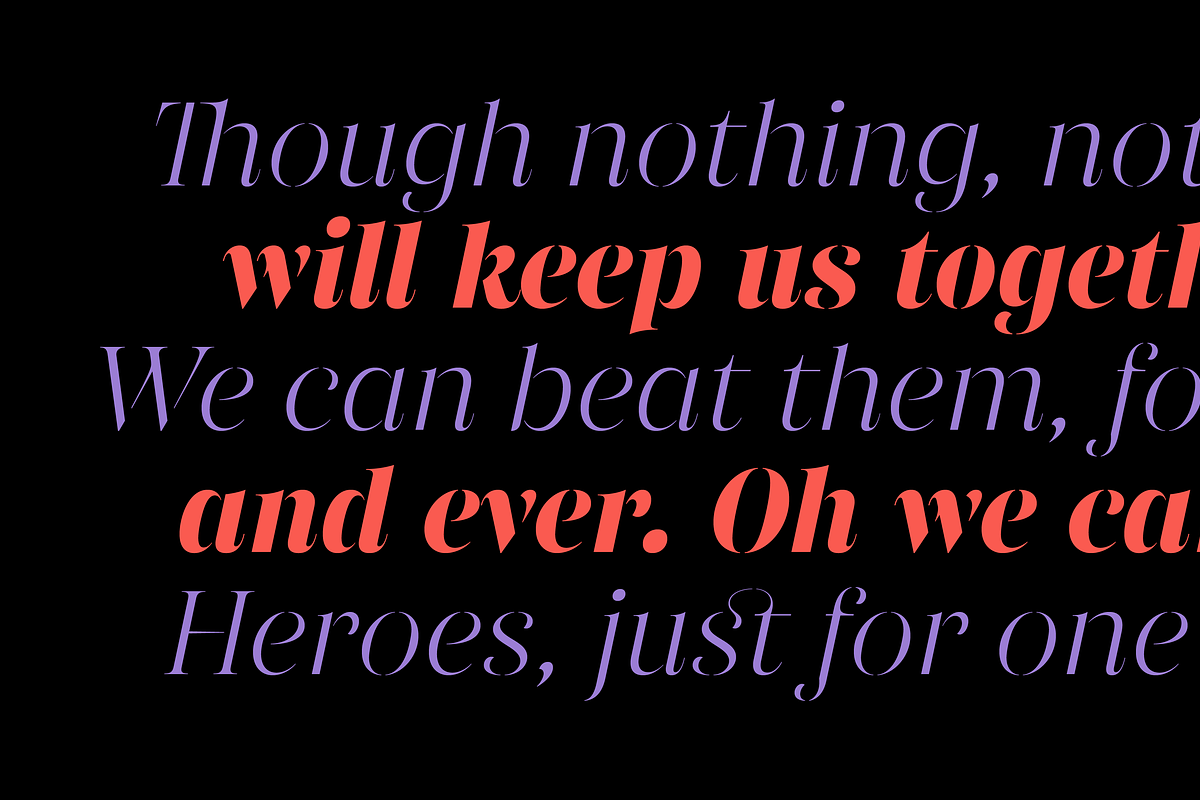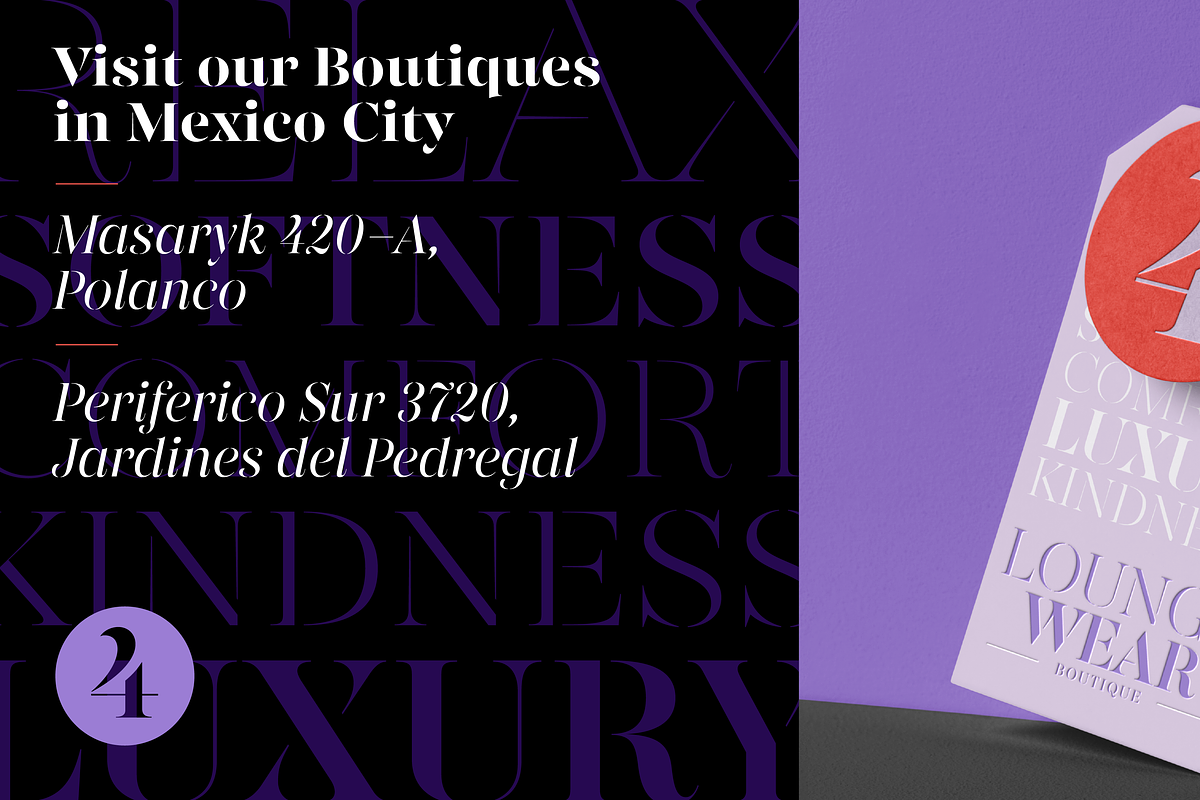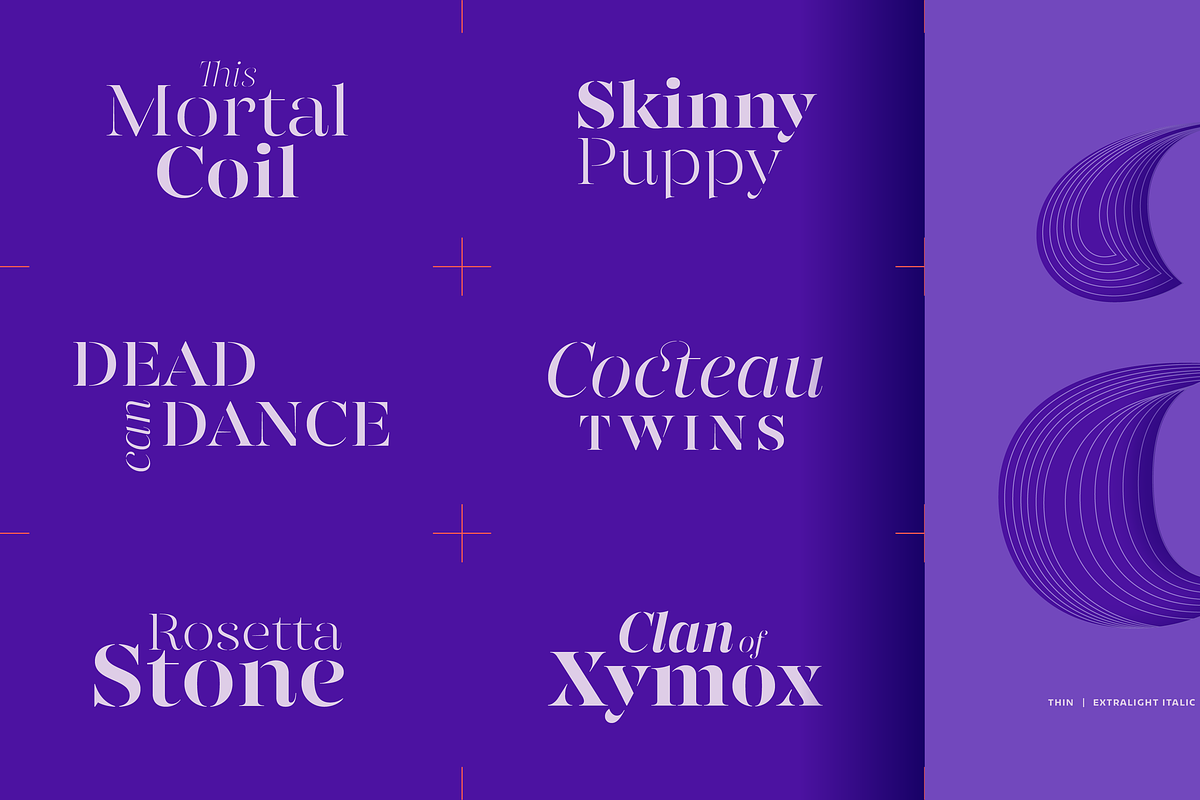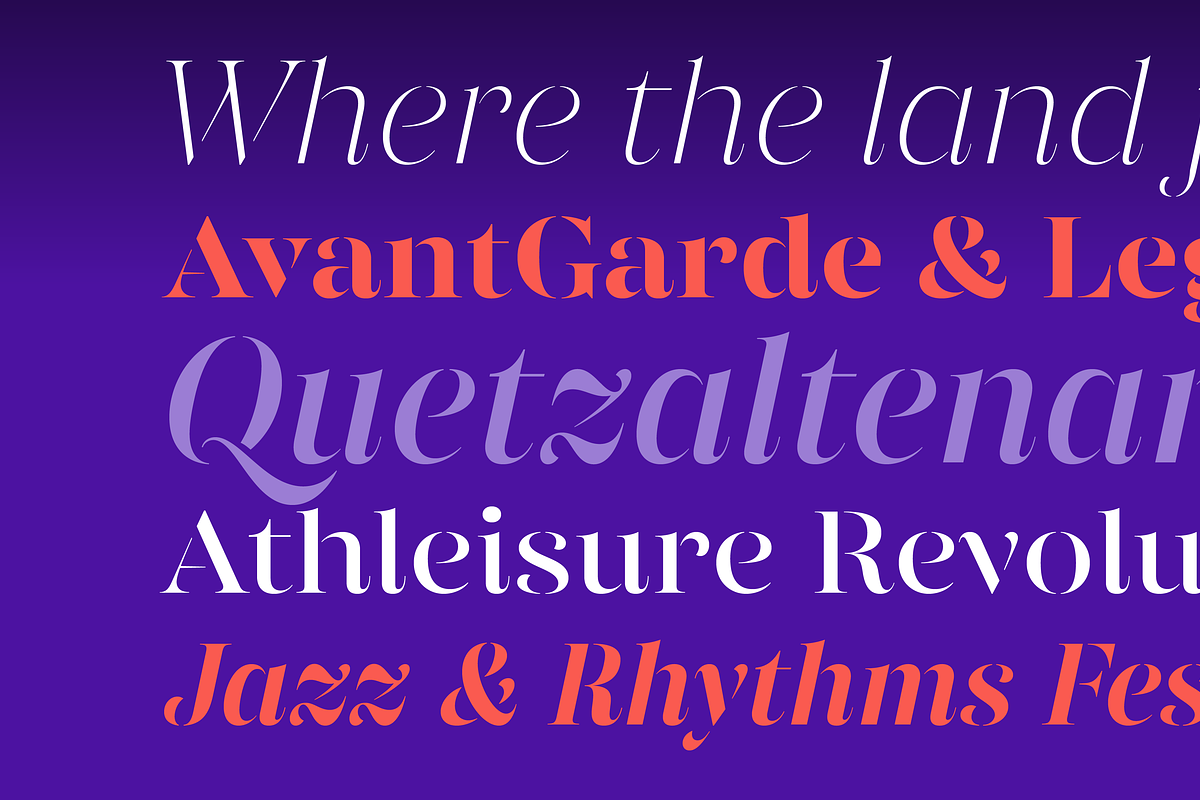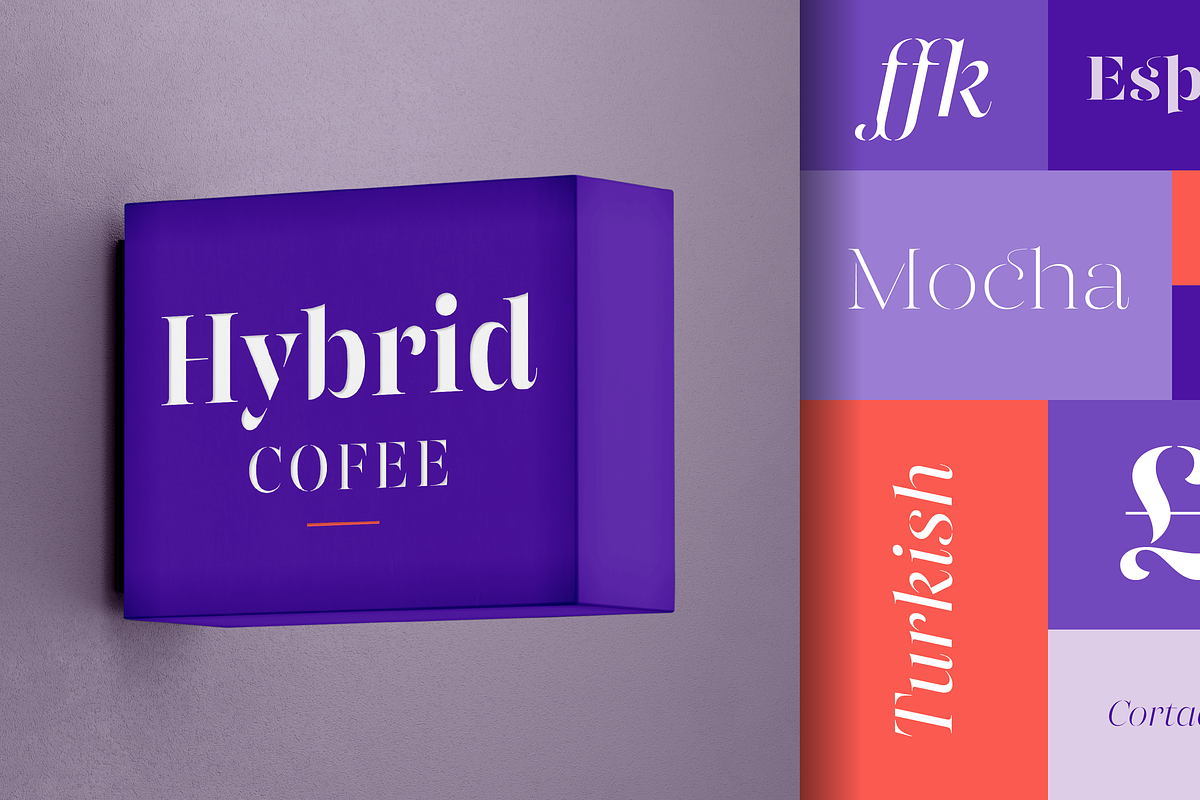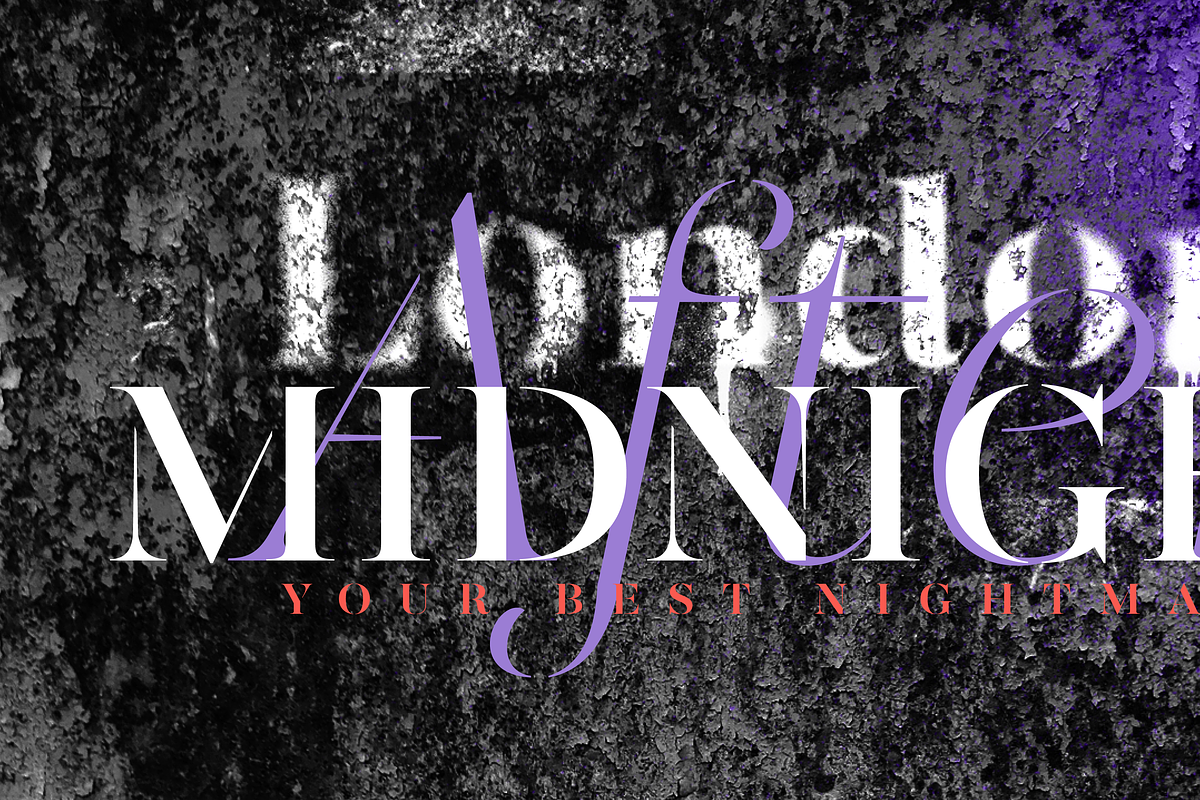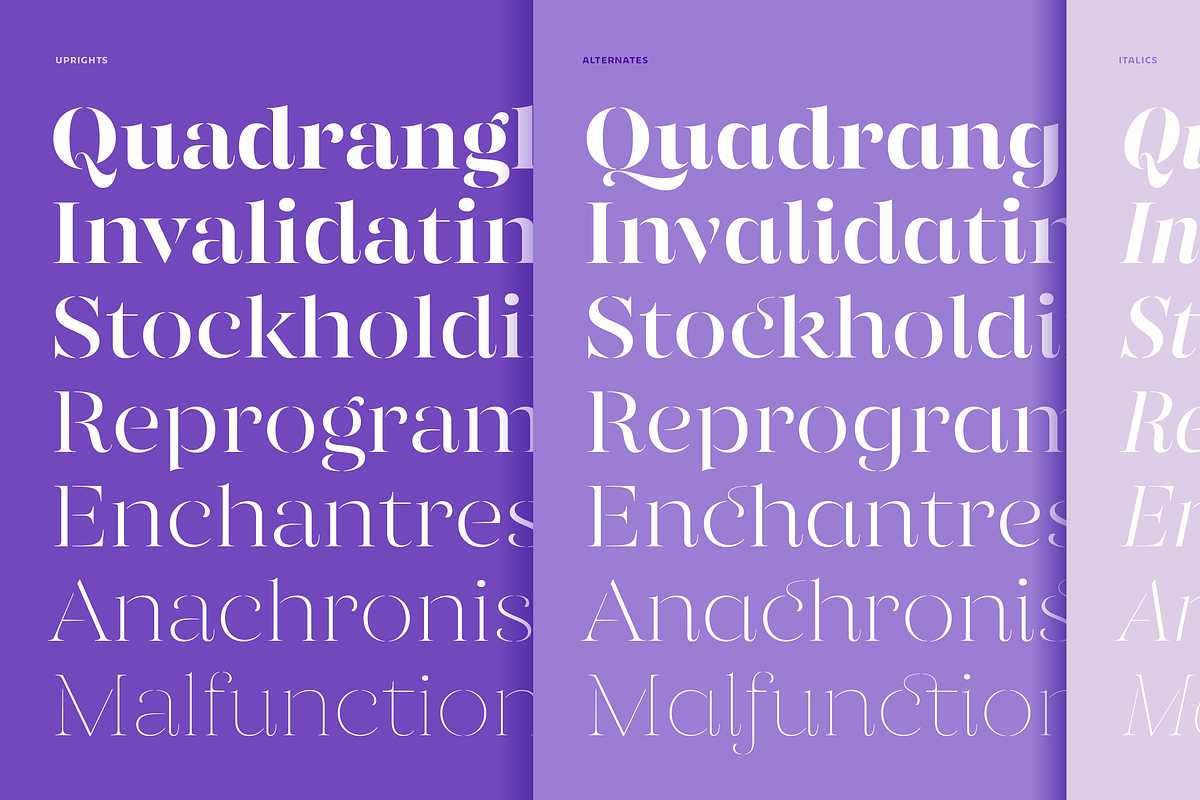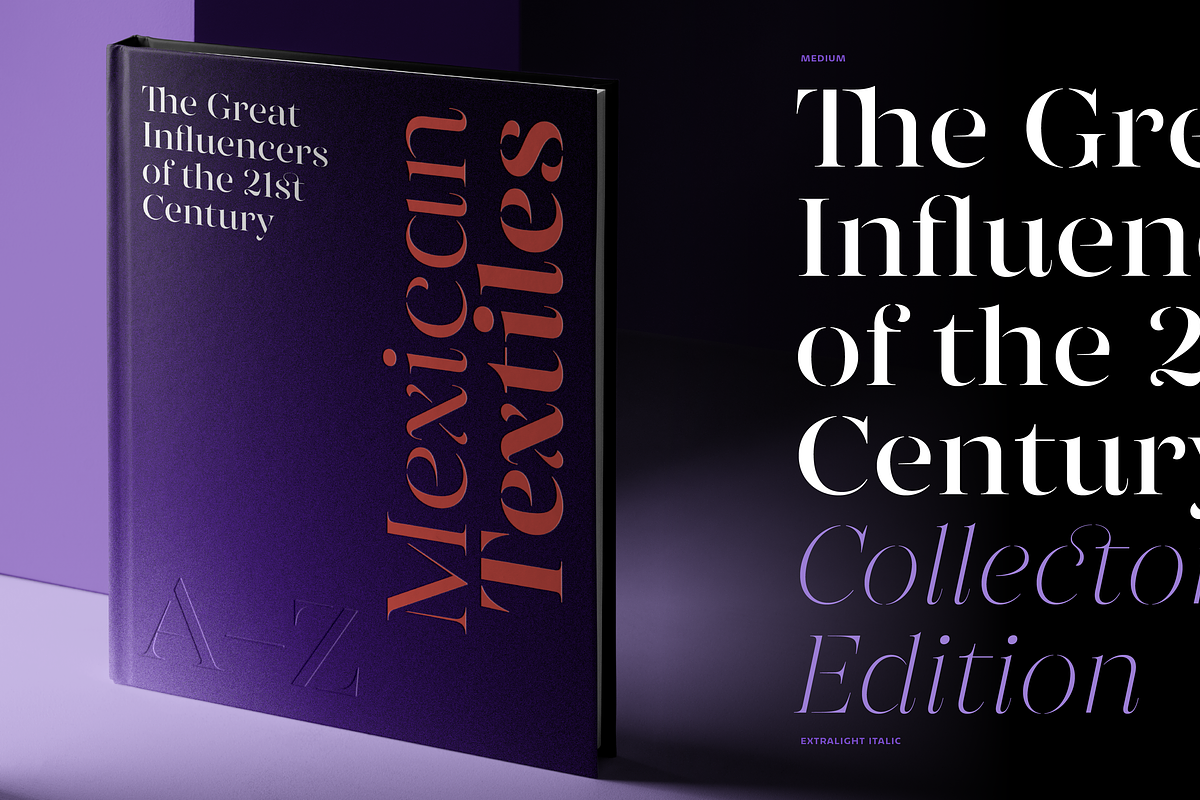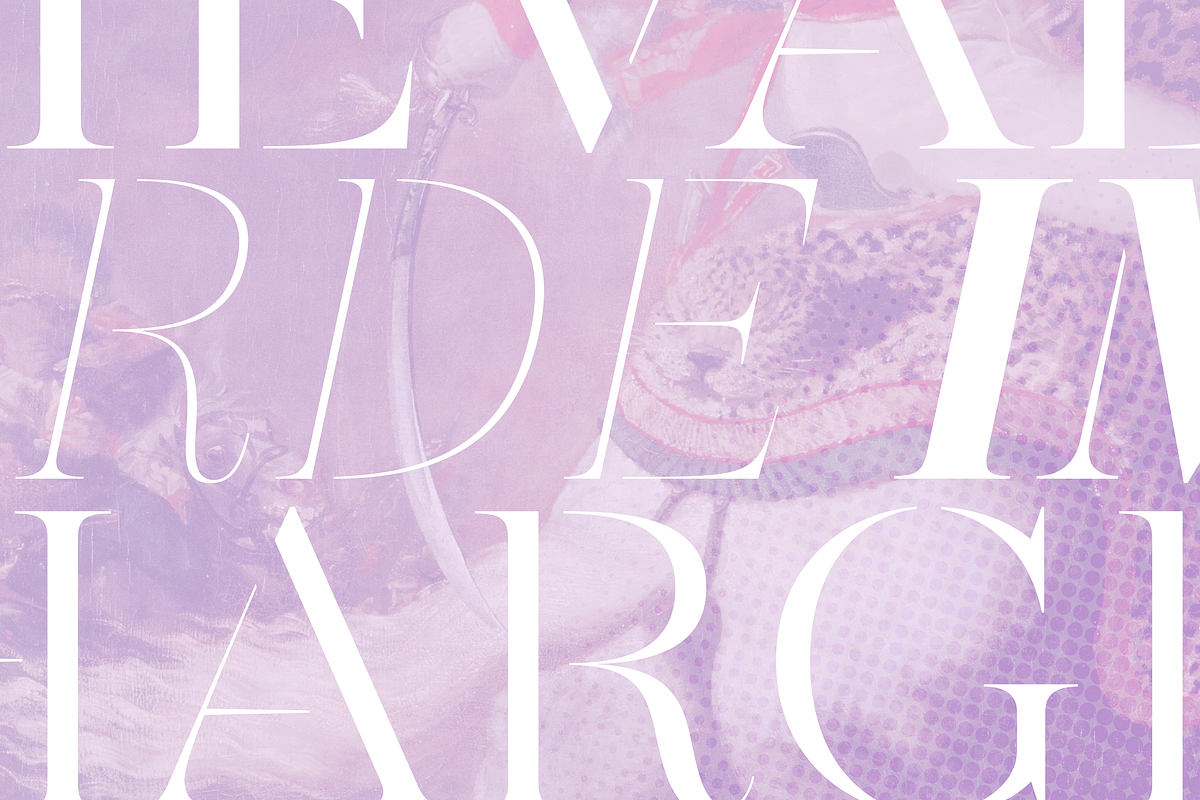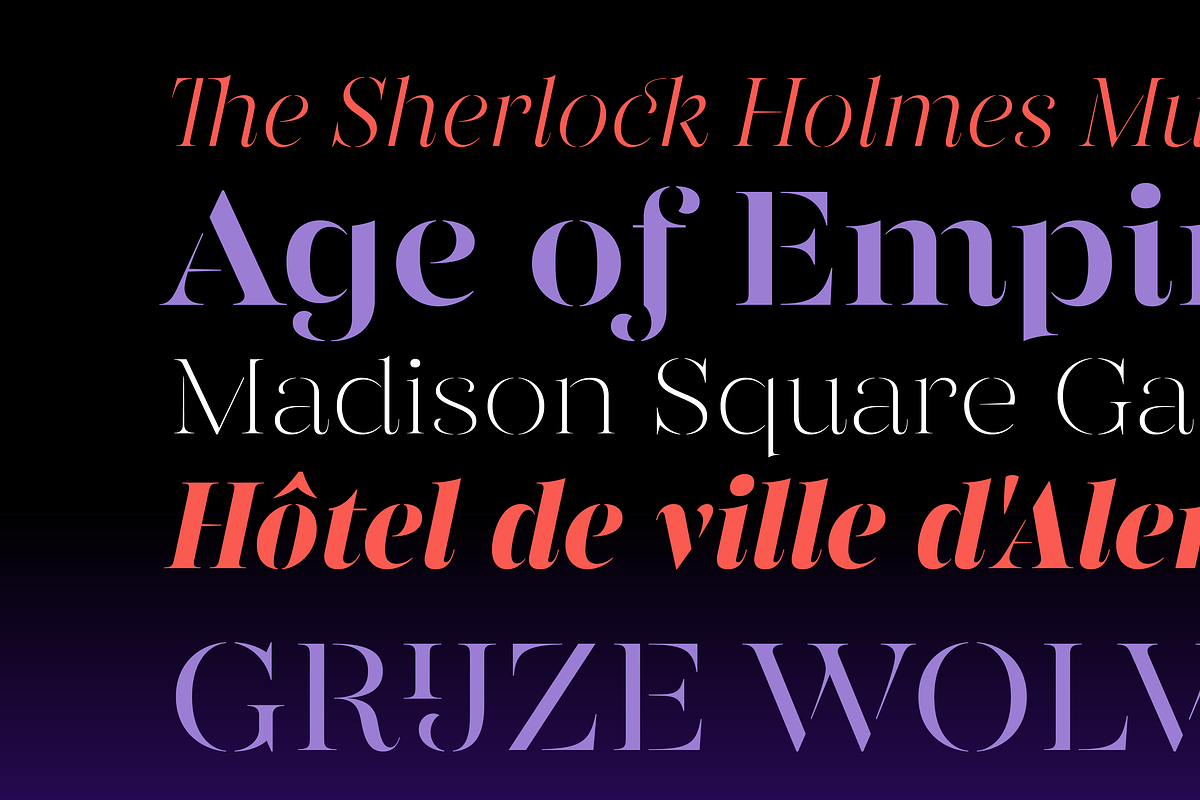
Gabriela Stencil
Gabriela Stencil is a display typeface inspired by the style of 19th-century Didone typefaces. It features a stencil aesthetic and boasts an edgy yet elegant couture feel, making it suitable for a variety of applications including advertising, editorial design, packaging, and branding. The font family includes seven weights plus a matching italic and supports 94 languages.